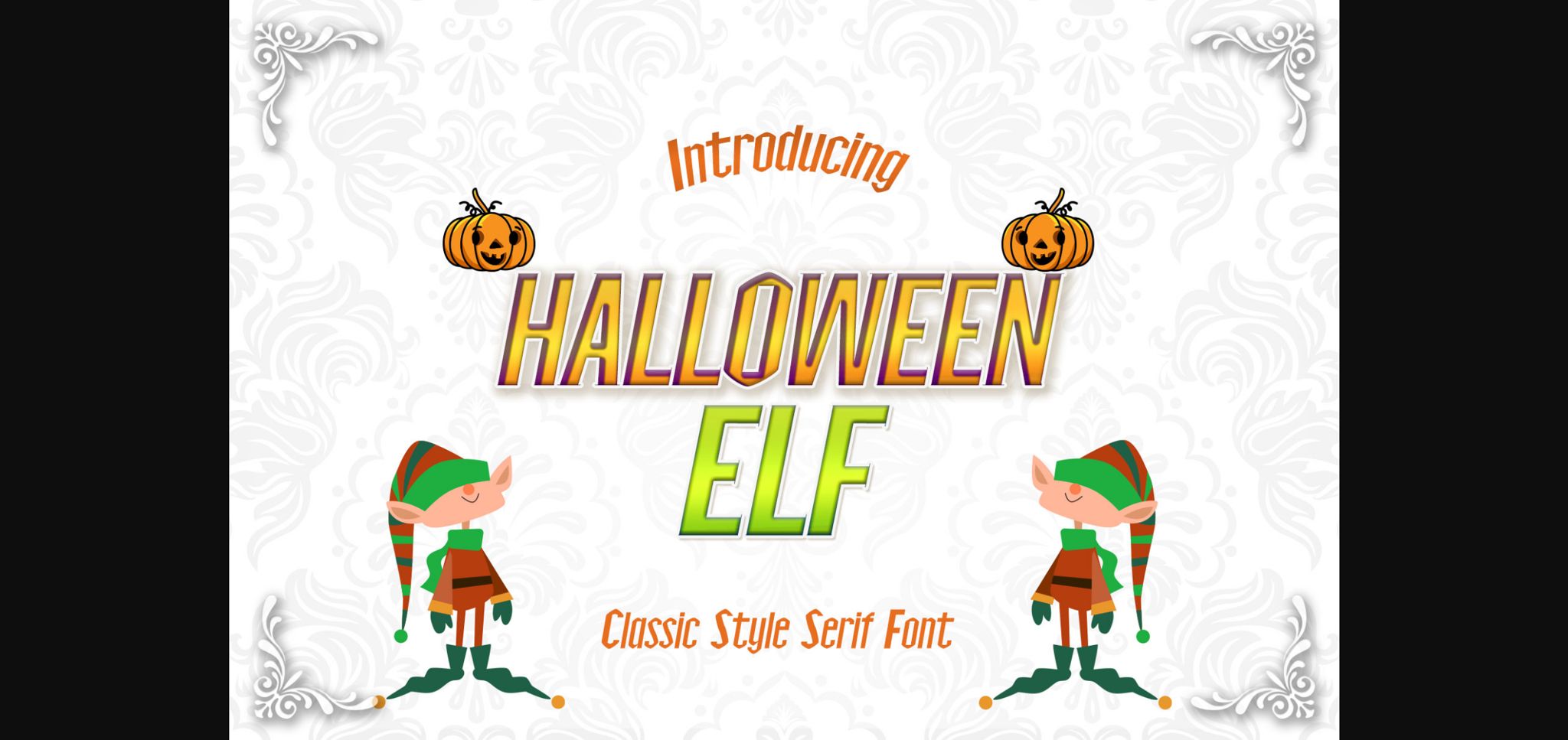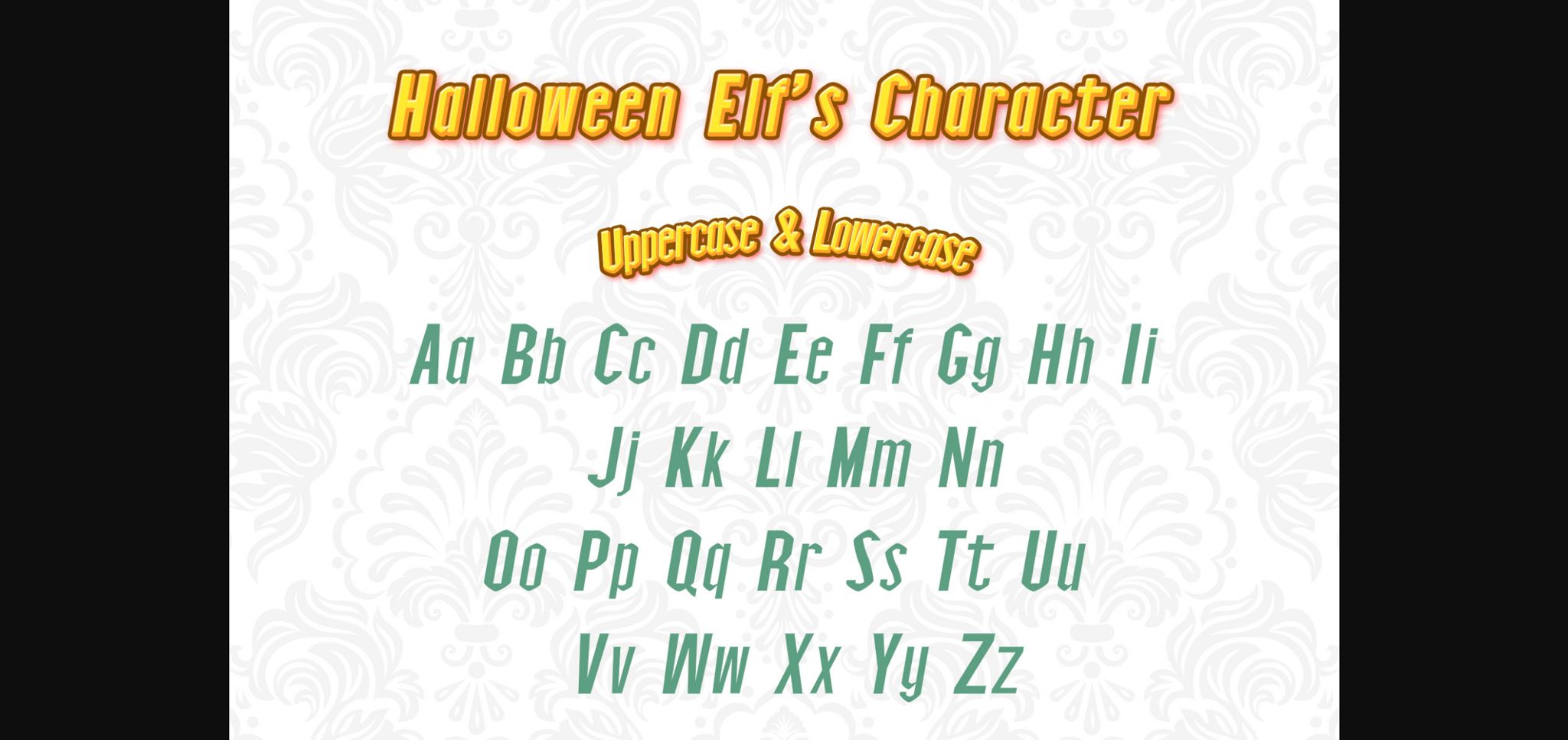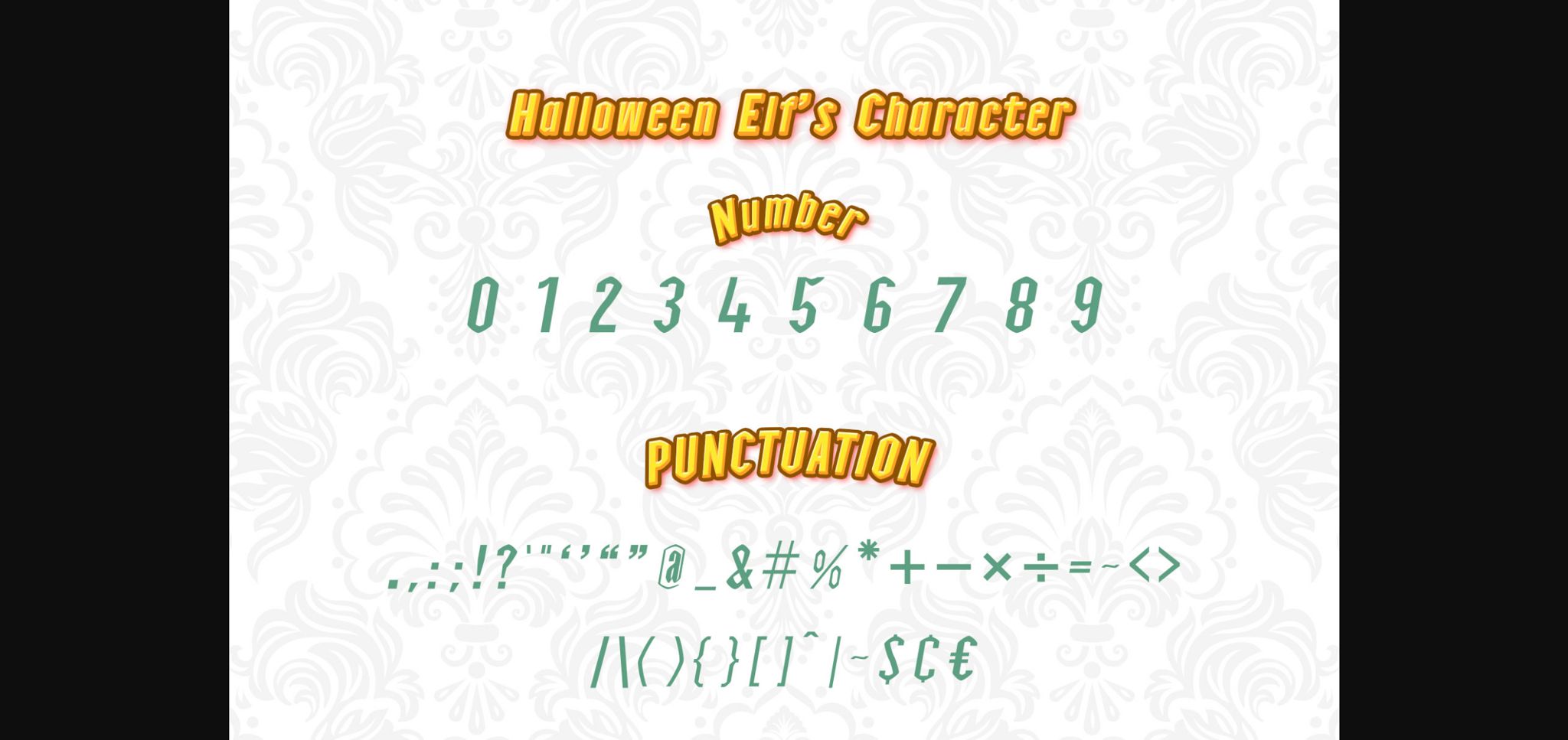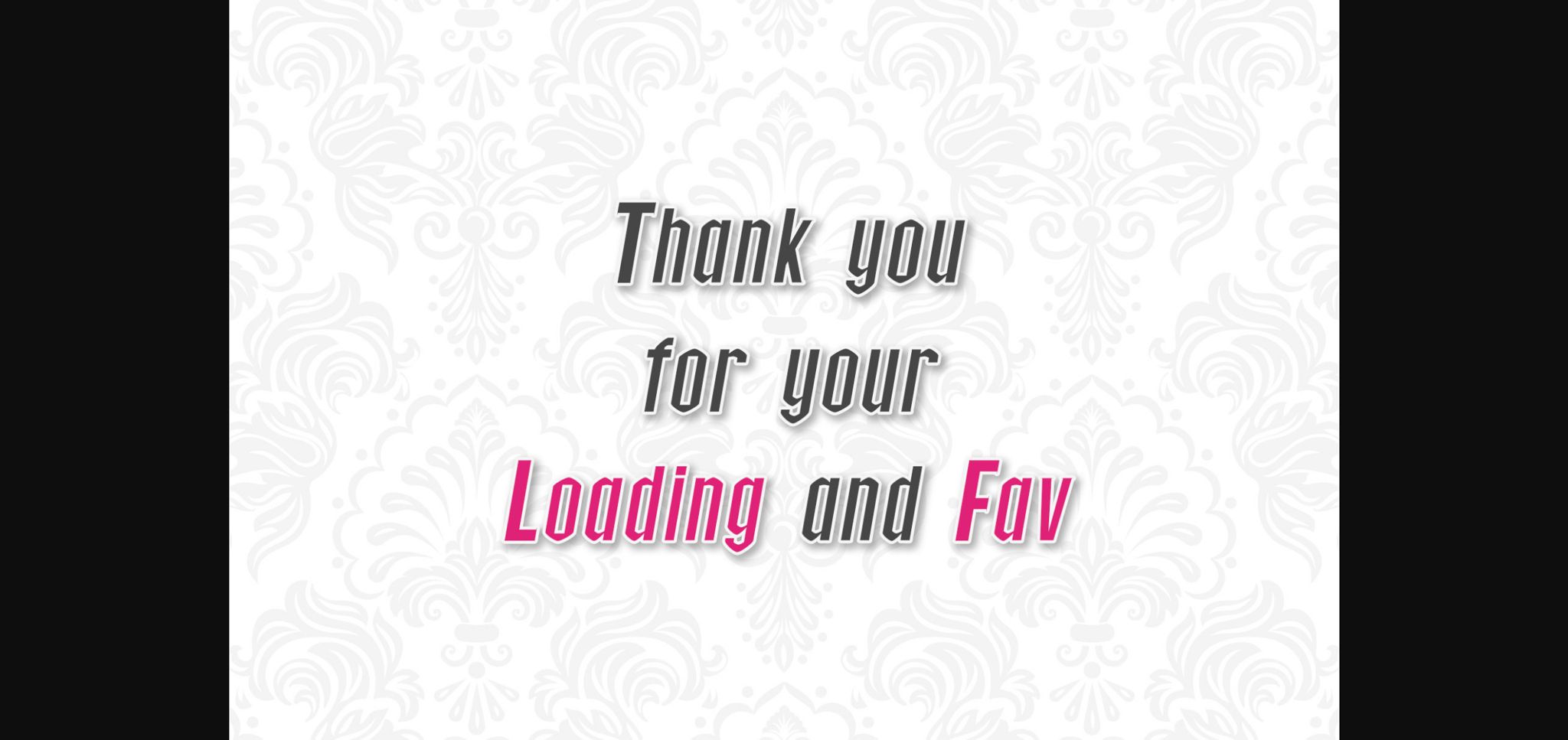
HomeSans Serif FontsHalloween Elf Font Sans Serif Fonts Halloween Elf Font FacebookTwitterPinterestWhatsApp 1 of 6 ... Halloween Elf Font Poster 2... Halloween Elf Font Poster 3... Halloween Elf Font Poster 4... Halloween Elf Font Poster 5... Halloween Elf Font Poster 6... About Halloween Elf Font Halloween Elf is a vintage styled and bold sans serif font. Fall in love with its incredibly powerful vibe and level up your upcoming projects! DOWNLOAD NOW People also explored Western of Dead Kathlyn Script Font One Mith Font Stacked Strong Font Sella Sionisa Font Winter Farmhouse Font Melathy Font Beer Bottle Mockup / Real Scenes Machine Tools Font 124 0 TagsHalloween Elf Font Previous articleShakeout FontNext articleQube Font LEAVE A REPLY Cancel reply Comment: Please enter your comment! Name:* Please enter your name here Email:* You have entered an incorrect email address! Please enter your email address here Website: Save my name, email, and website in this browser for the next time I comment. Personal Use Free Cuttie Personal Use Free Read more about this font Boldist Personal Use Free Read more about this font Forturn Personal Use Free Read more about this font Sunflower Personal Use Free Read more about this font BLOG Best Fonts for T-Shirt Design – Top 2025 Picks In 2025, t-shirt design has become more than just fashion—it's a form of self-expression. Whether you're... The 10 Best Handwriting Fonts to Add Personality to Your Designs Using Fonts in Digital Marketing: Tips to Strengthen Your Brand Identity Elegant Wedding Invitation Fonts – Handwritten & Script Fonts